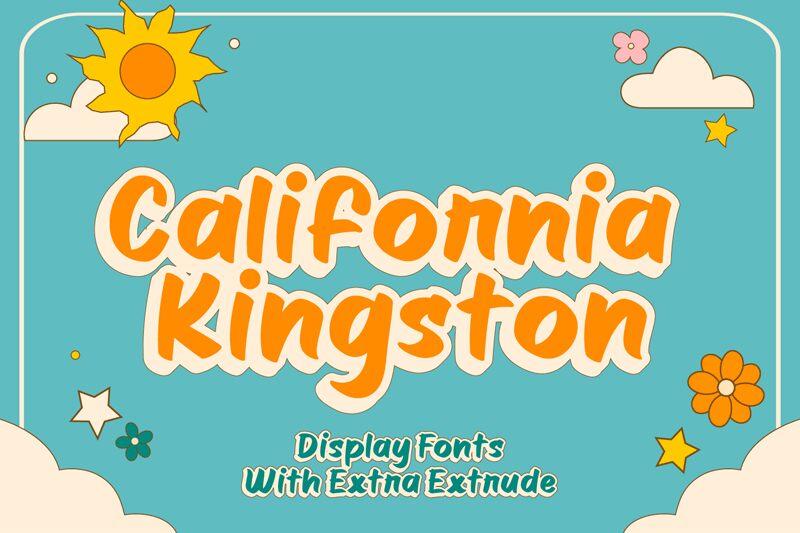
California Kingston
Looking for a font that's both bold and expressive? Look no further than California Kingston! This playful, handwritten marker font from designer Stefie Justprince is perfect for adding a touch of personality to your next project. Whether you're designing a fun and funky poster, creating eye-catching social media graphics, or crafting a unique logo for your business or brand, California Kingston has you covered. With its bold lines and playful curves, this font is sure to make a statement wherever it's used. So why wait? Give California Kingston a try today and see what kind of magic you can create!